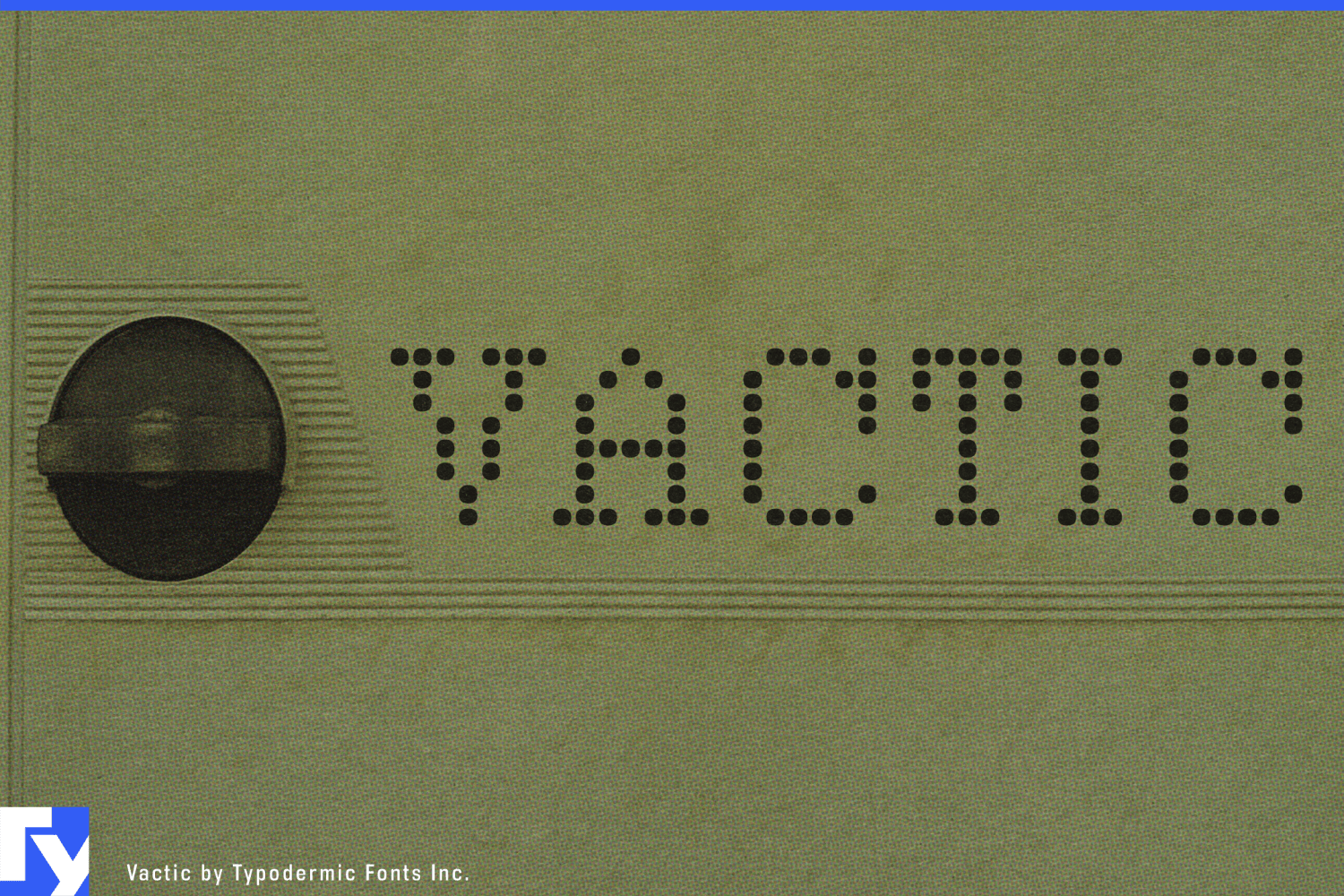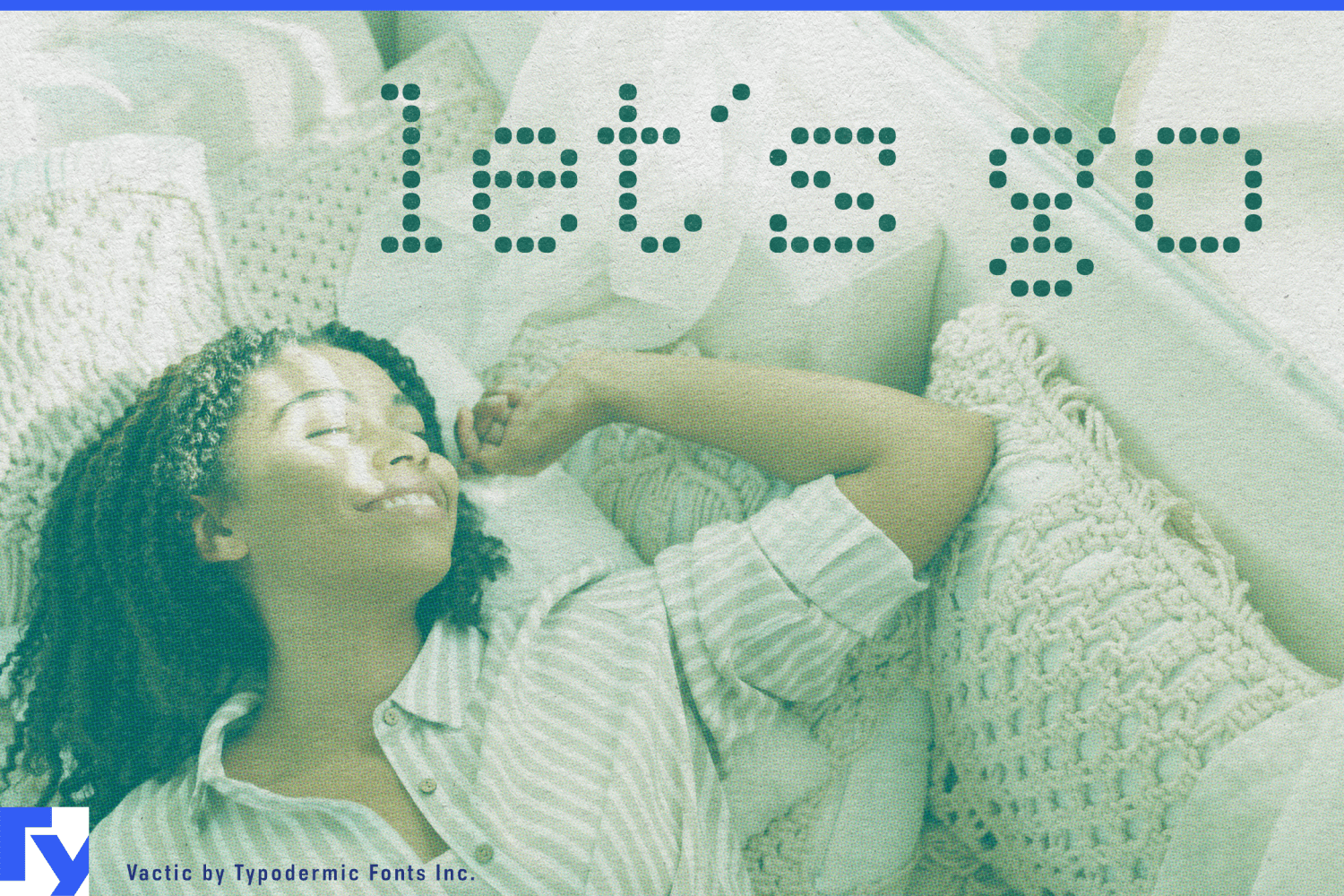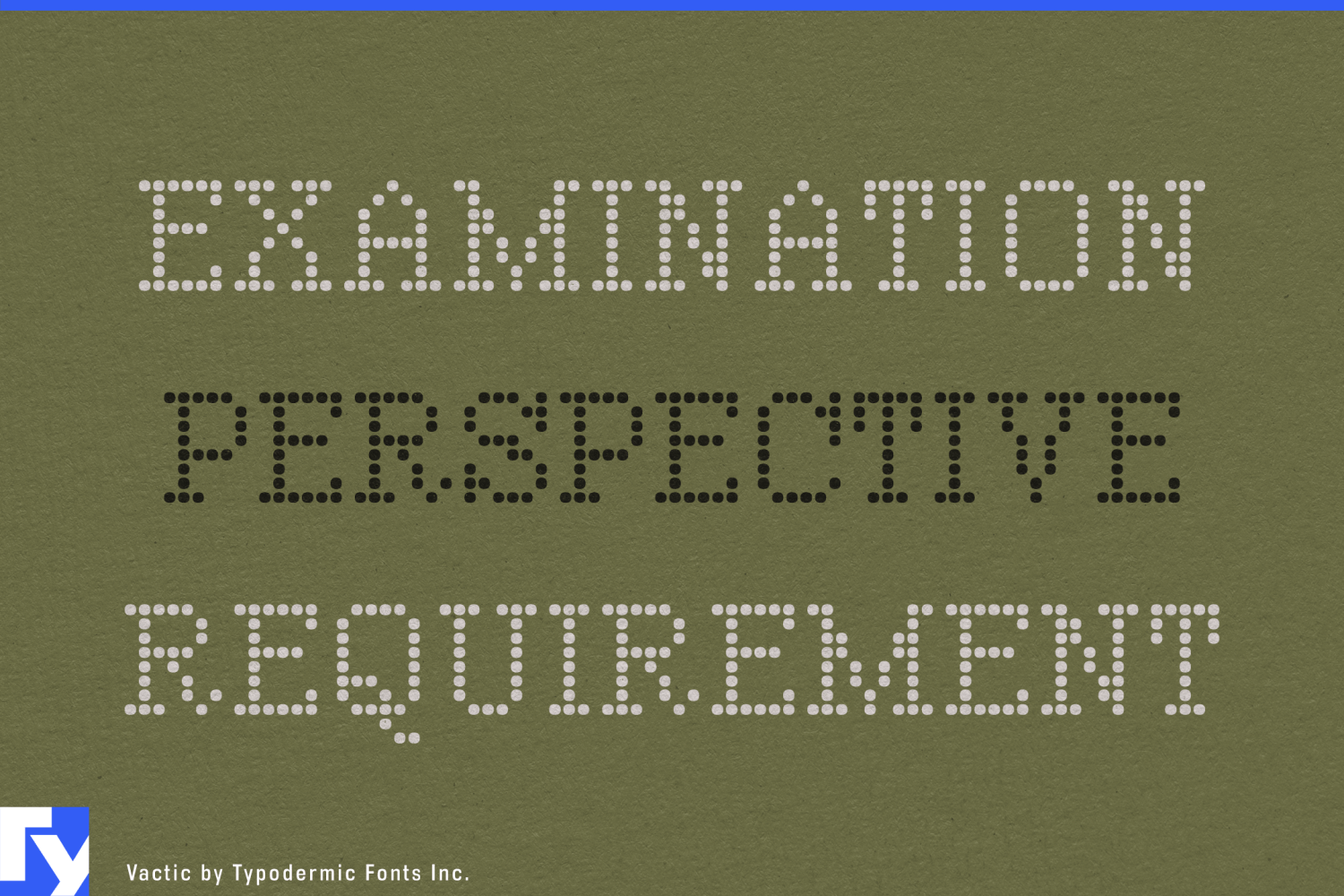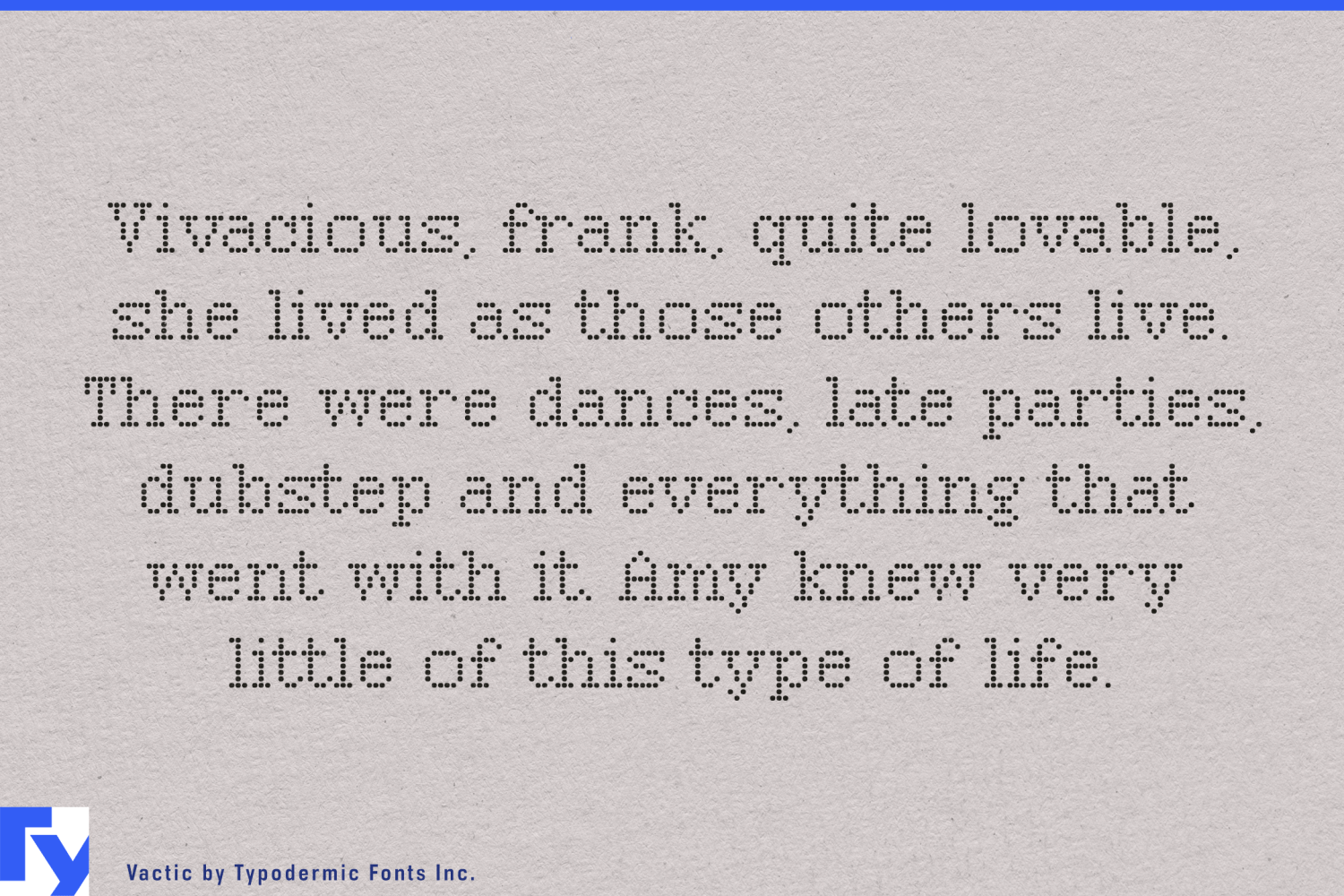
About Vactic
Step into a world where digital nostalgia meets modern design with Vactic, a typeface that beautifully captures the essence of early computer aesthetics. Vactic’s round, pinpoint pixels transport you to an era of ticker tape parades and monumental…